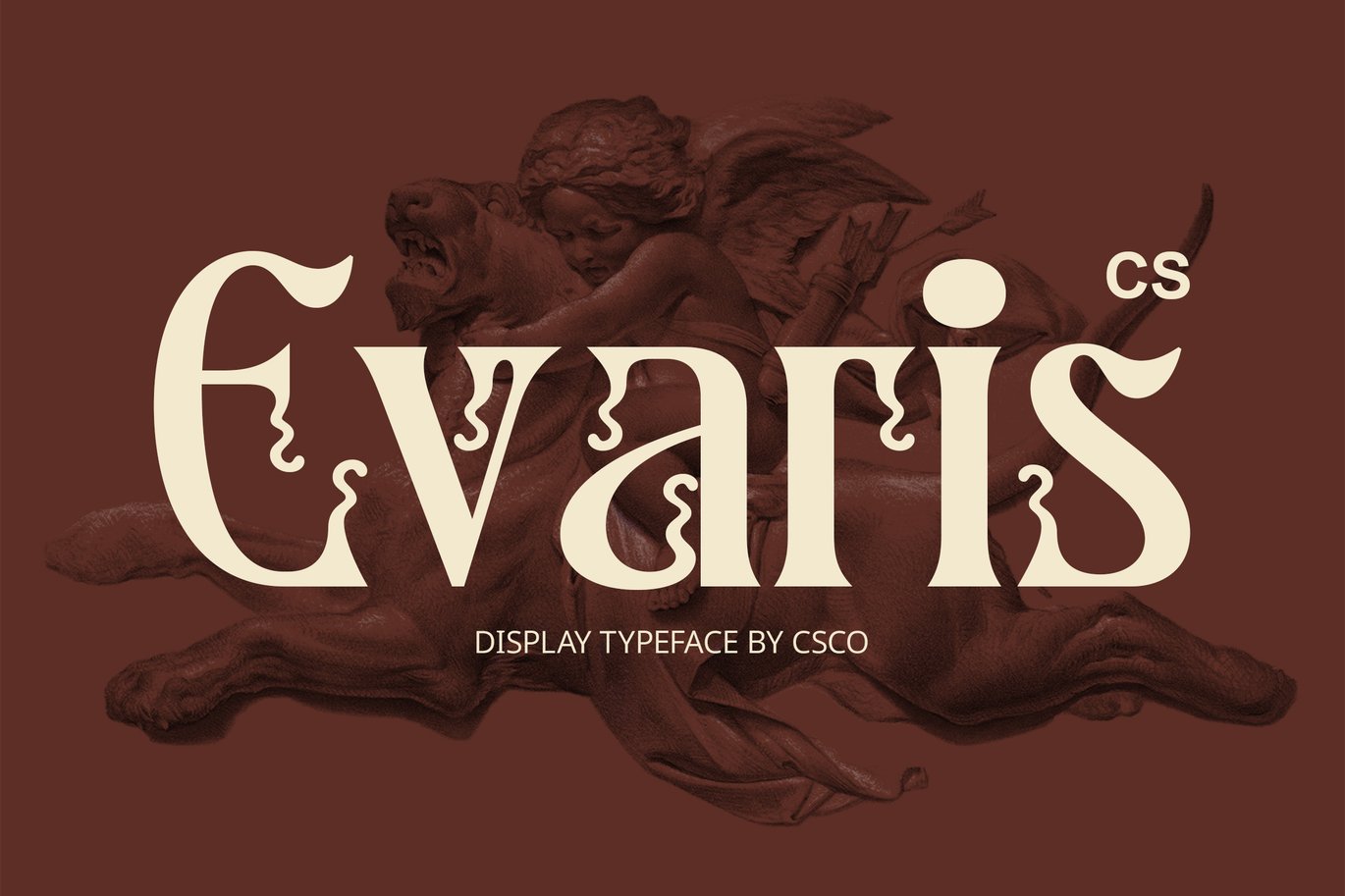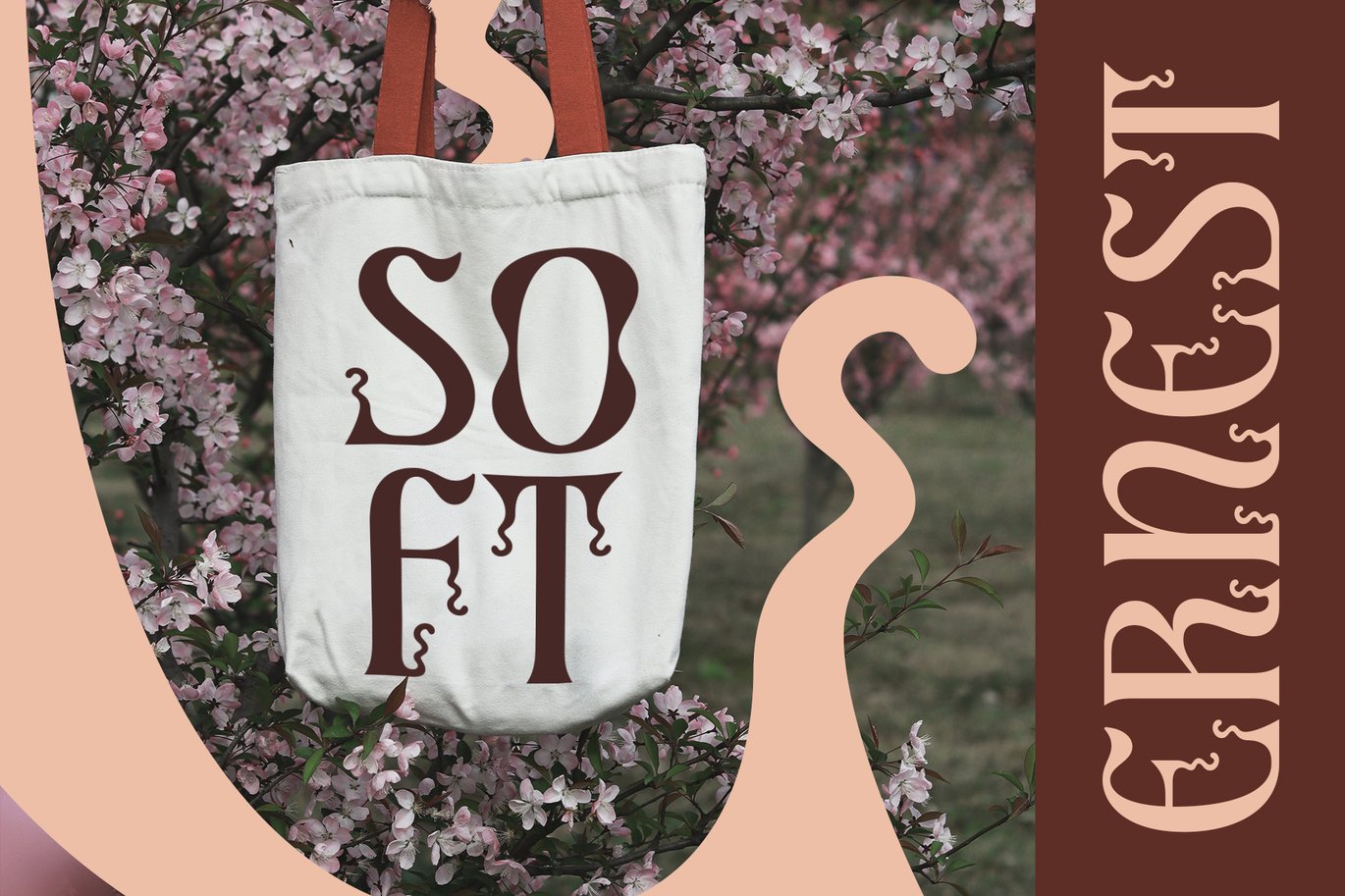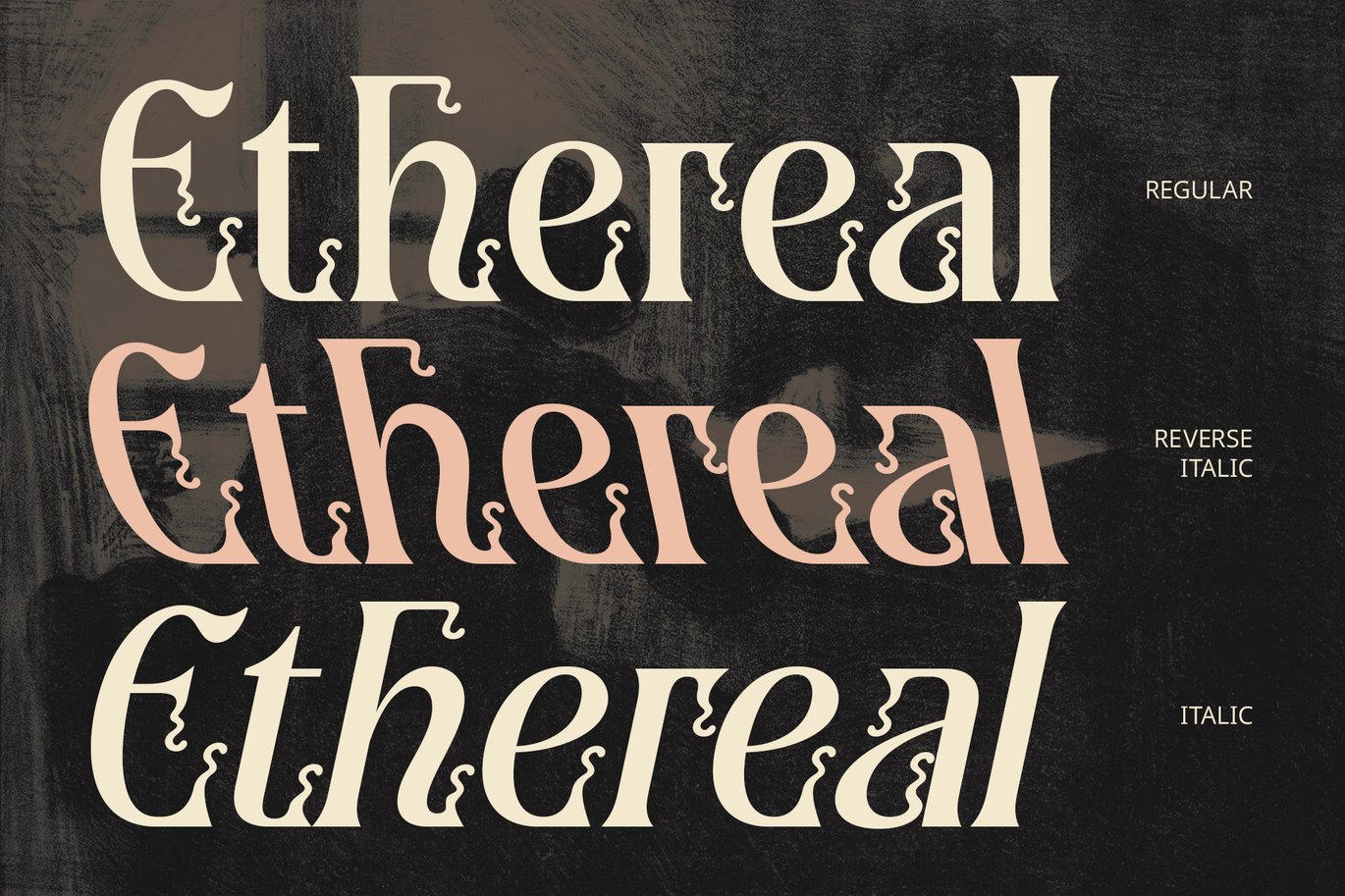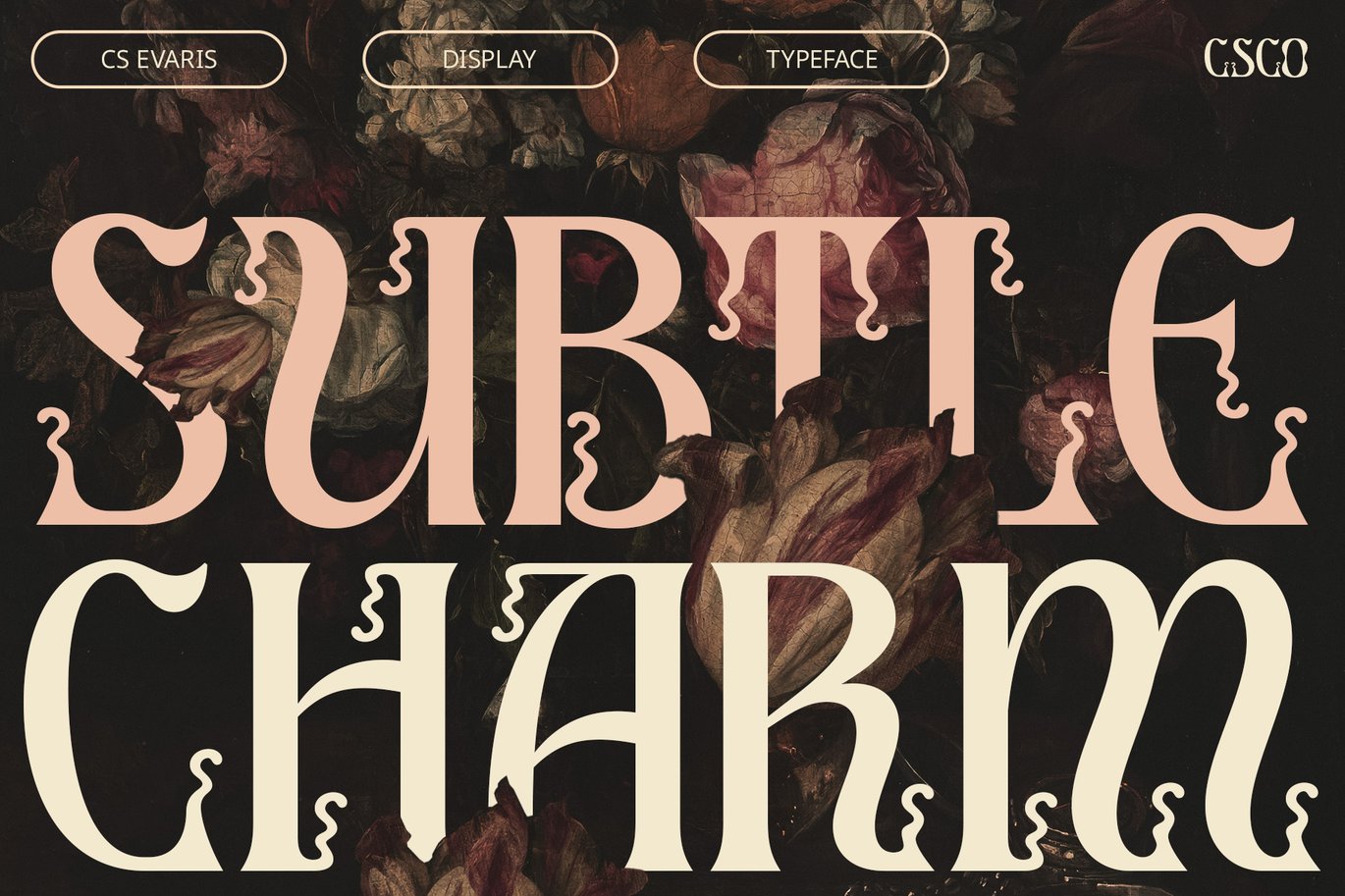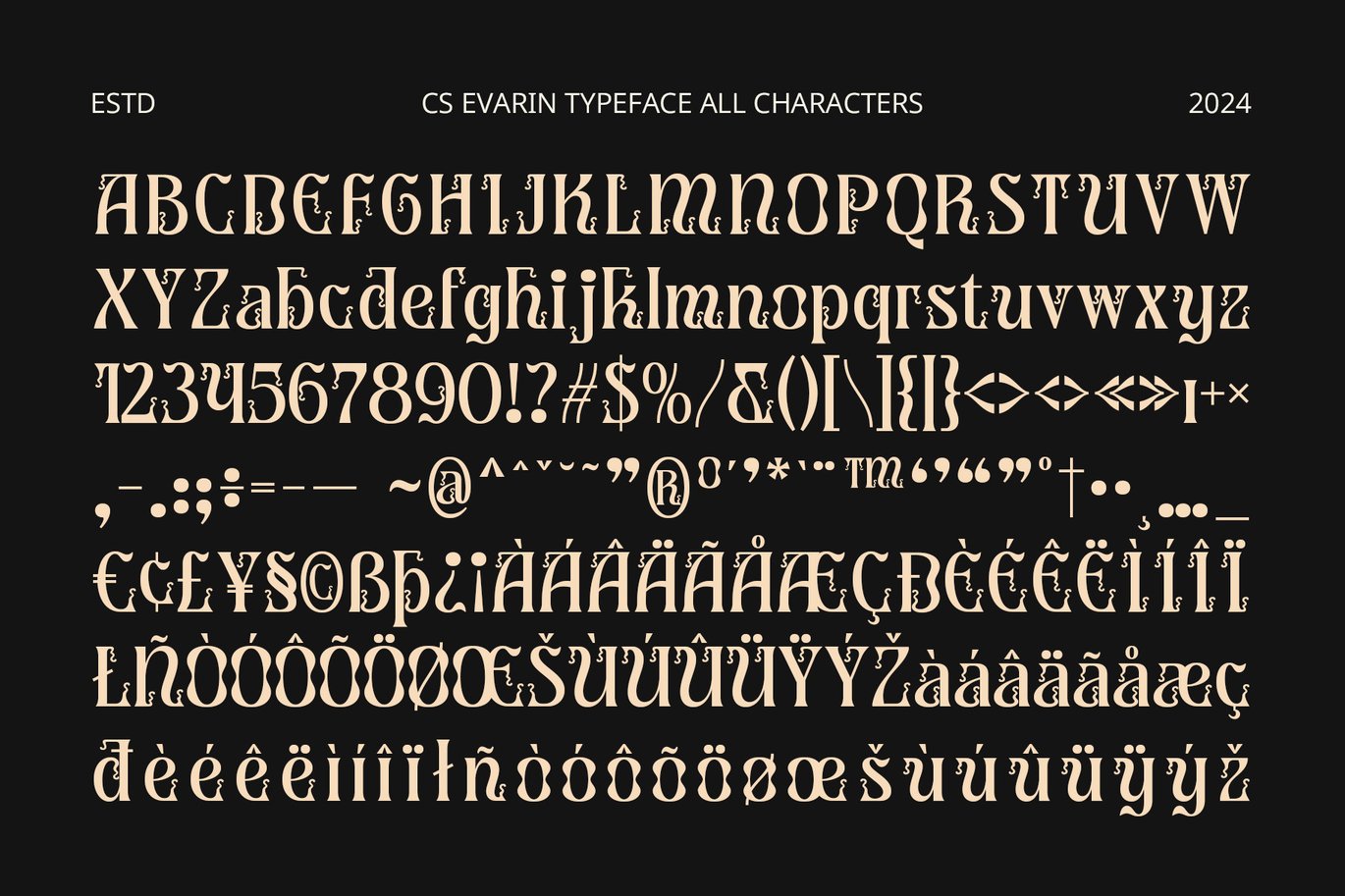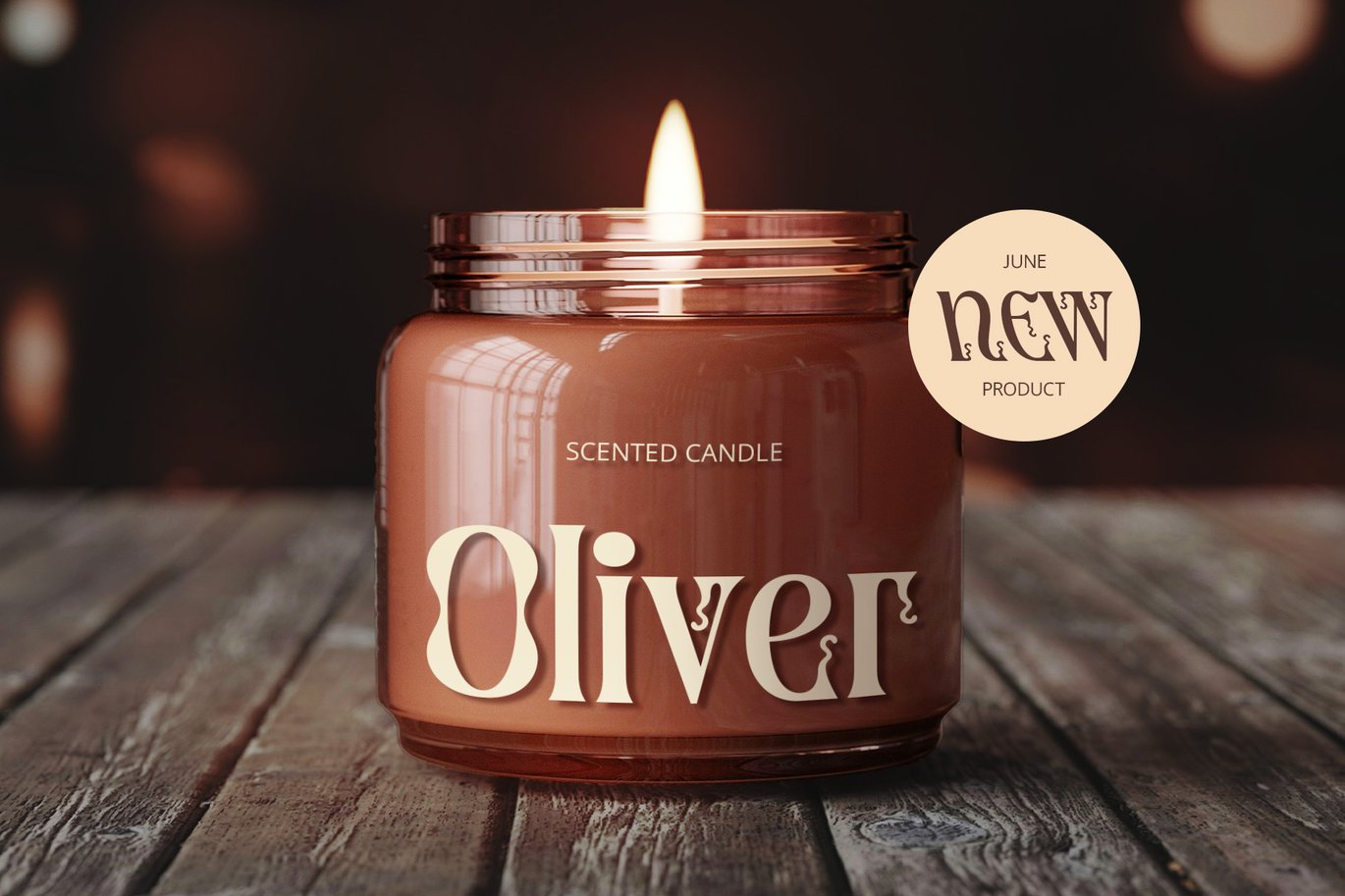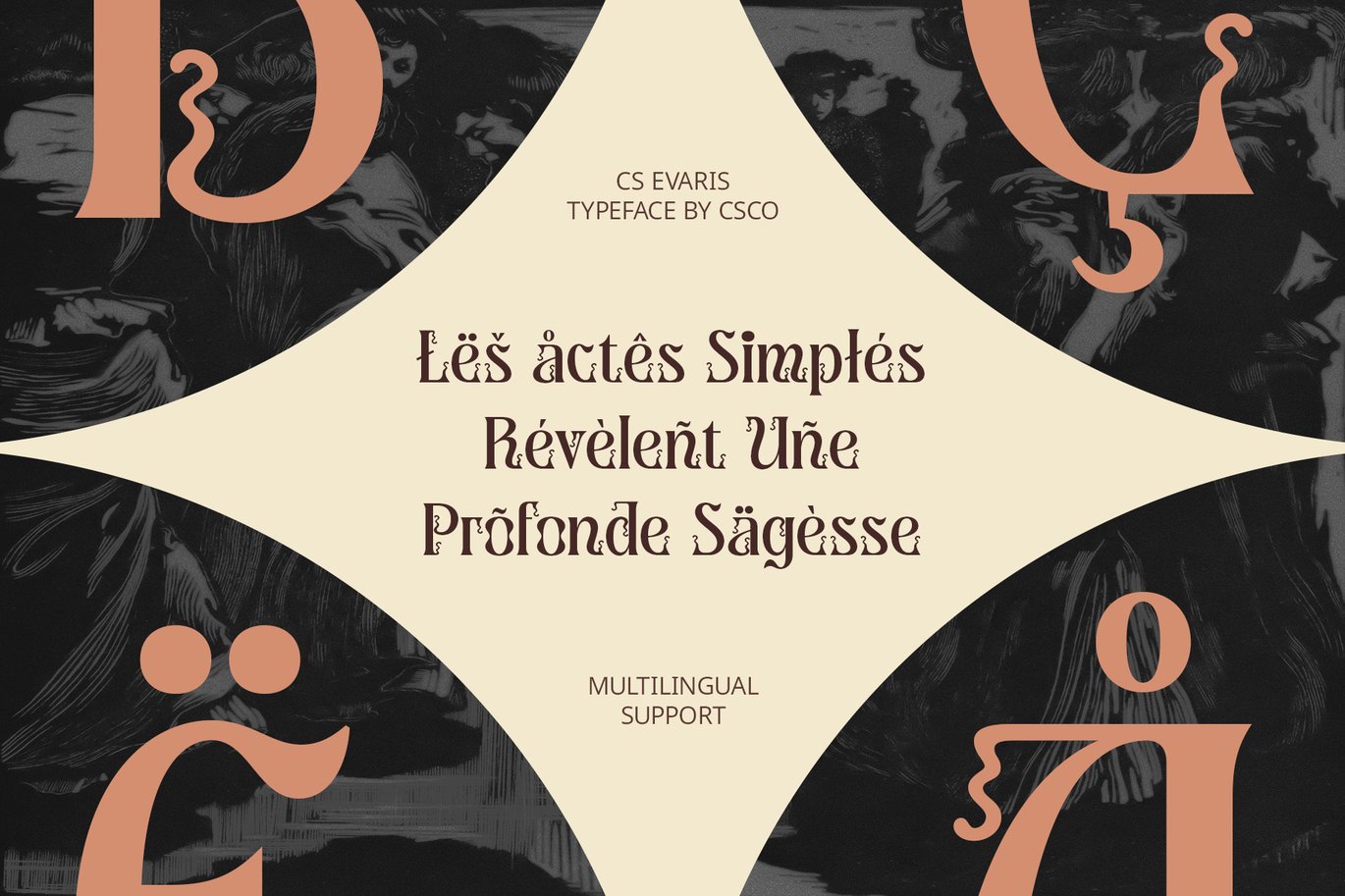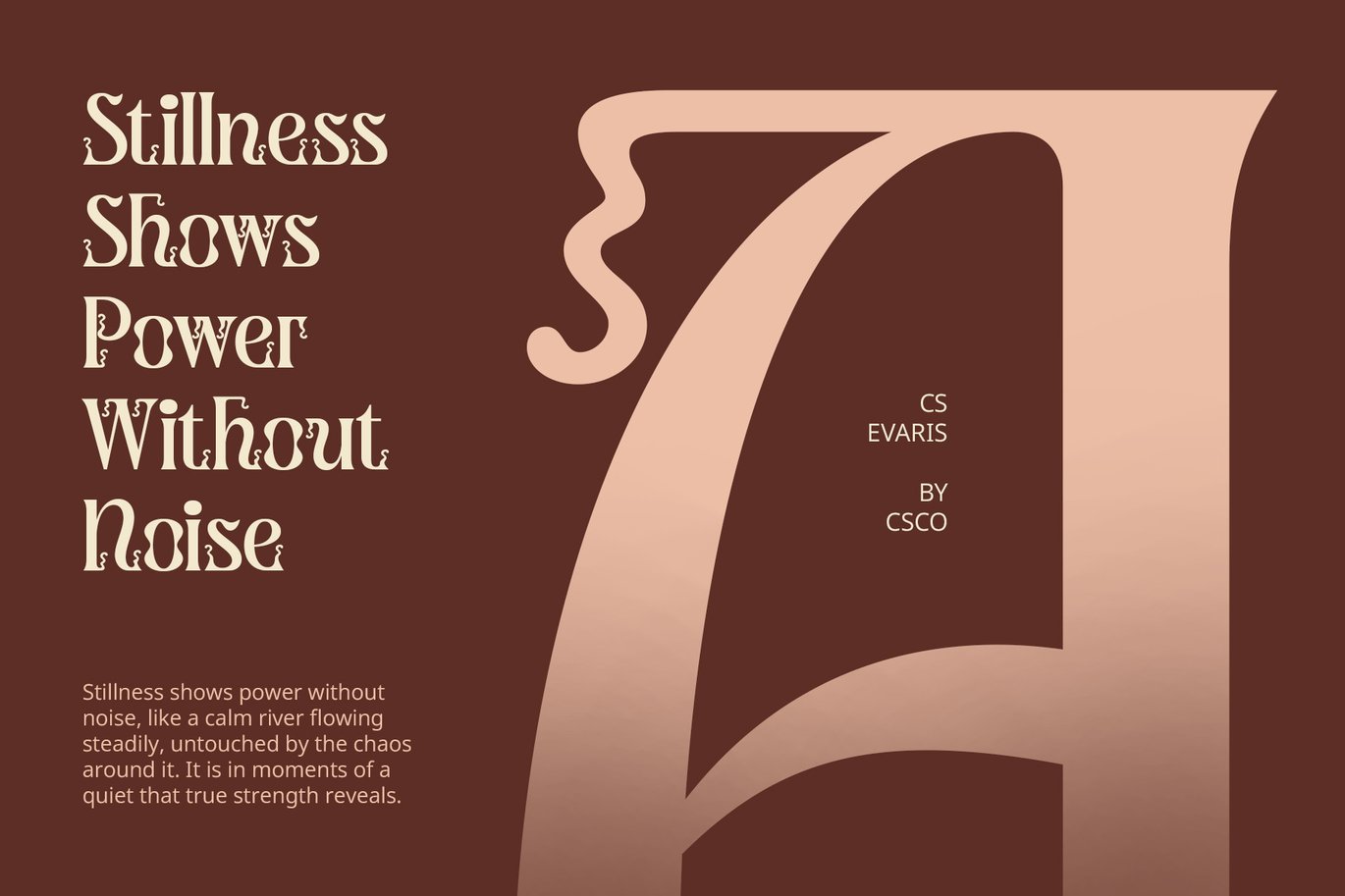
Evaris – Decorative Font
CS Evaris – Elegant Decorative Serif Font
A Fusion of Classic Elegance and Artistic Detailing
CS Evaris is a modern display serif font that seamlessly blends classic serif elements with rich, intricate decorative details. The design features elongated serifs and sophisticated ornamentation, creating an air of luxury and refinement. With its elegant and formal aesthetic, this font is perfect for high-end branding, exclusive invitations, editorial layouts, and other creative projects that demand a timeless yet contemporary style.
Refined and Luxurious Presence
The decorative serifs and artistic flourishes in CS Evaris add a level of distinction that elevates any design. Its refined details, while maintaining legibility, offer a luxurious feel, making it ideal for projects that need to communicate both sophistication and elegance. The careful balance between classic formality and artistic ornamentation gives the font a contemporary edge, ensuring it stands out in a variety of creative applications.
Timeless Style for Sophisticated Projects
Perfect for luxury branding, high-end invitations, formal editorial work, and more, CS Evaris adds an artistic and eye-catching dimension to designs. The intricate details draw attention, while the overall structure ensures readability, making it suitable for both print and digital media. Whether you’re designing for upscale events, corporate branding, or fashion magazines, CS Evaris delivers a striking yet sophisticated impression.